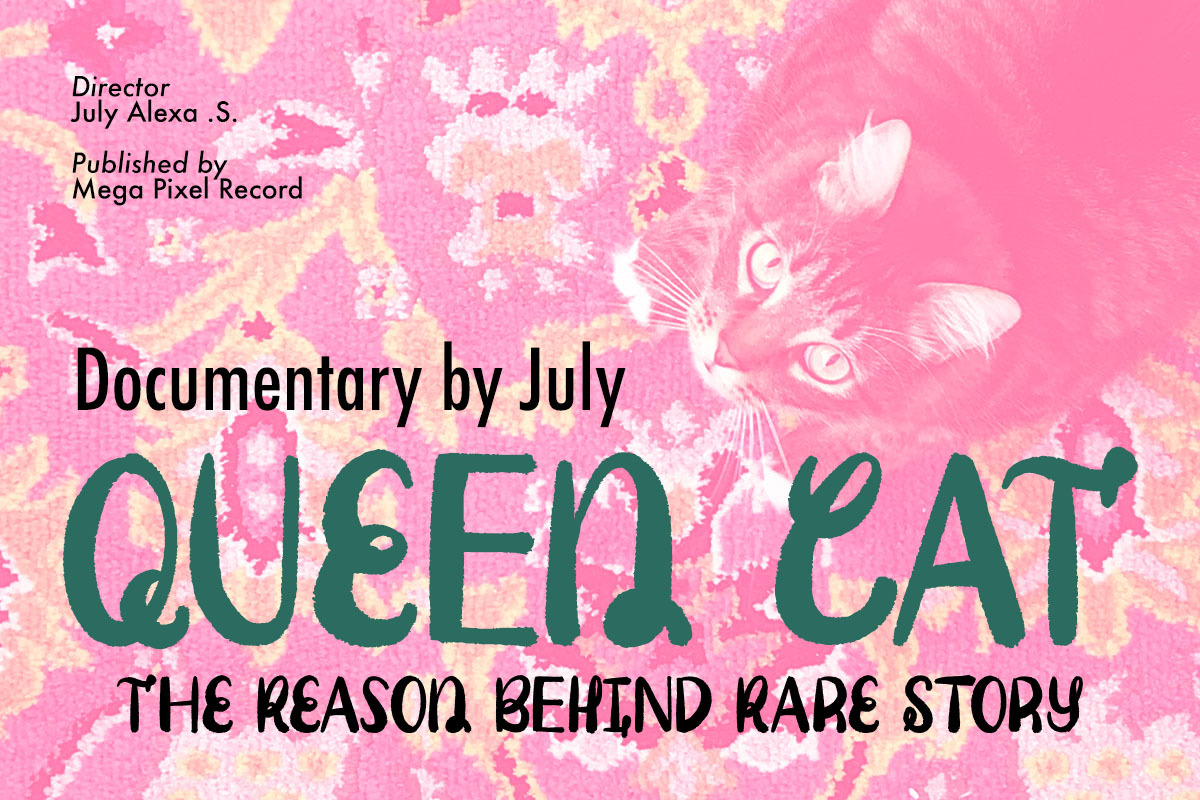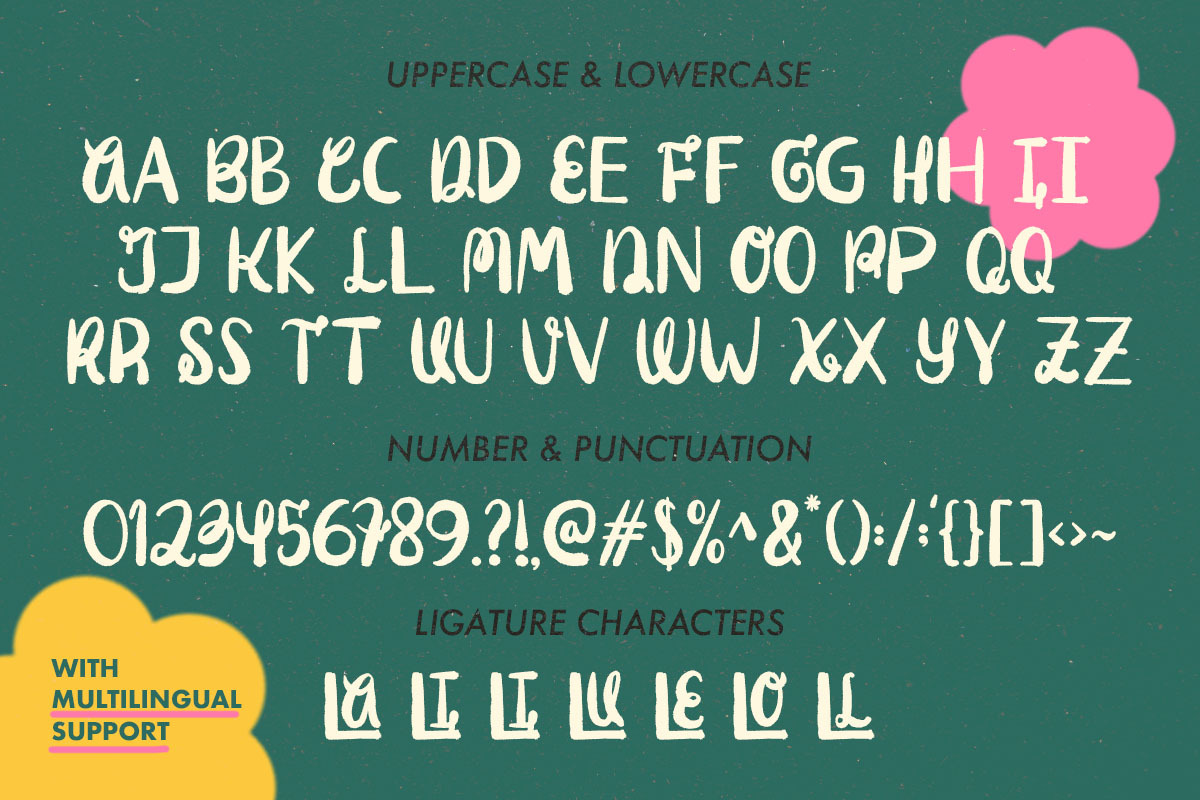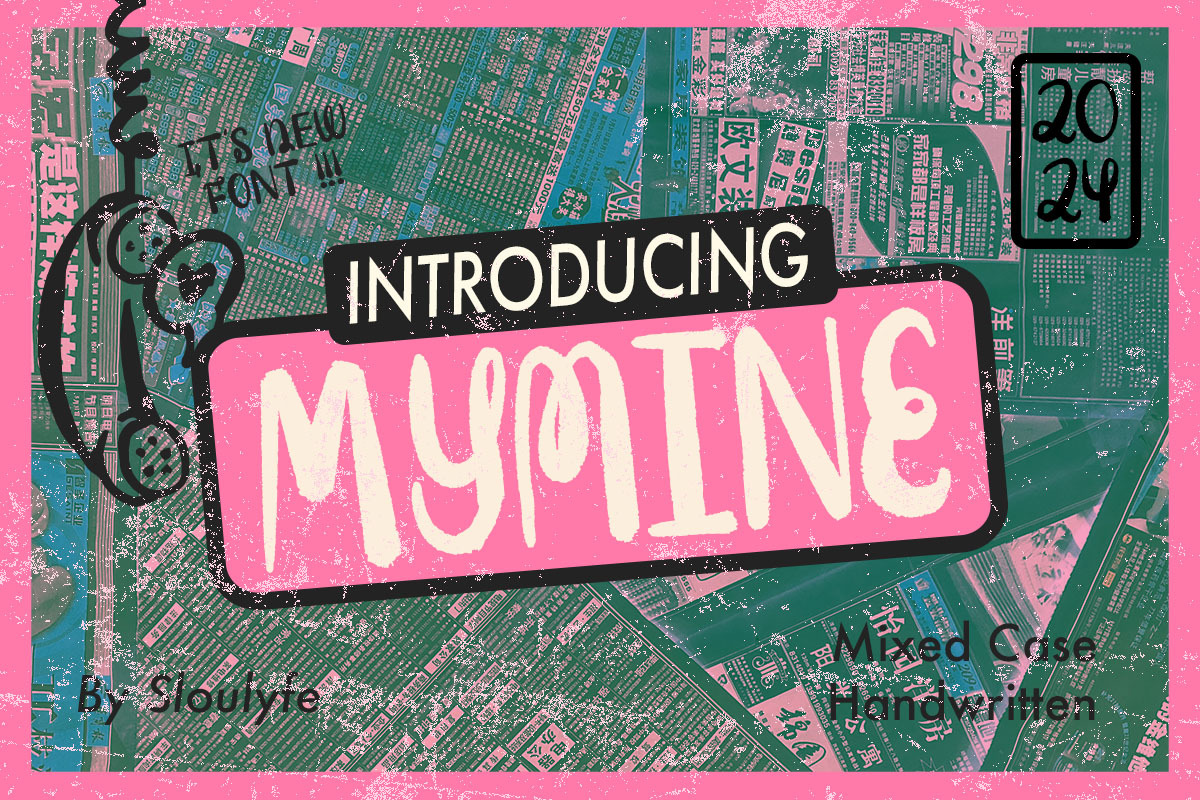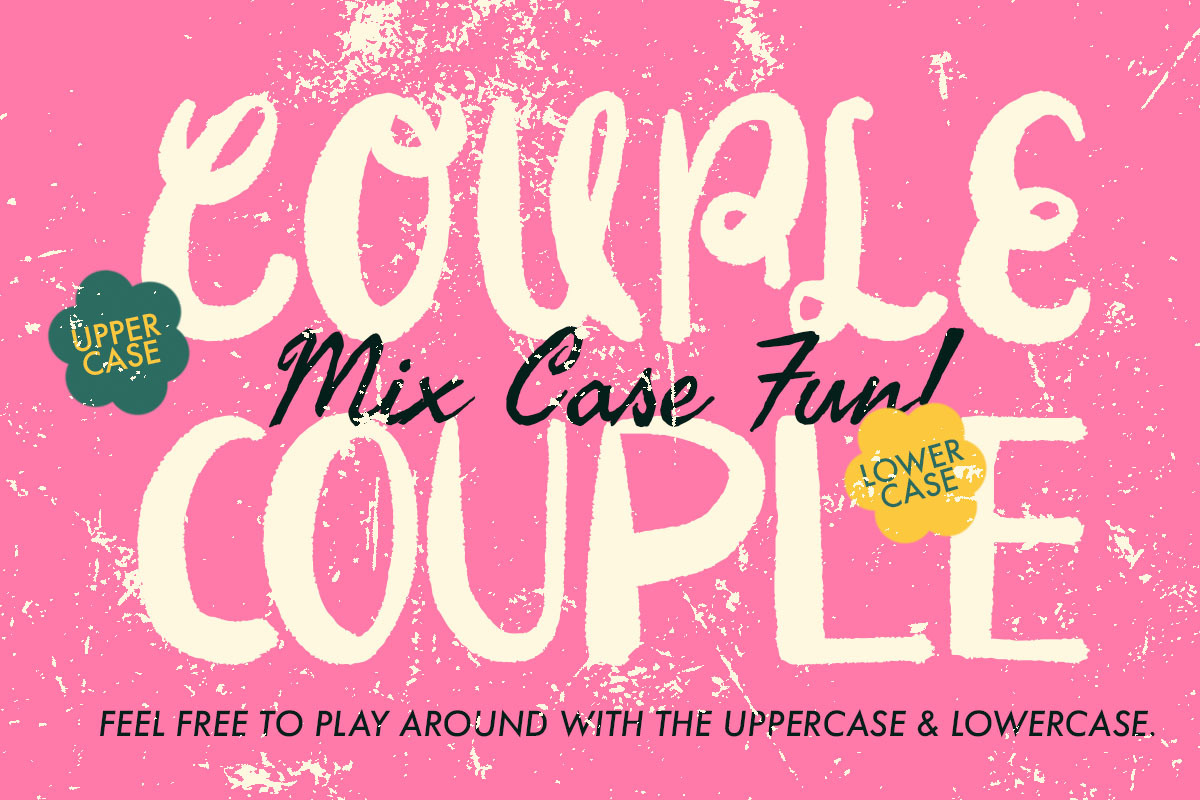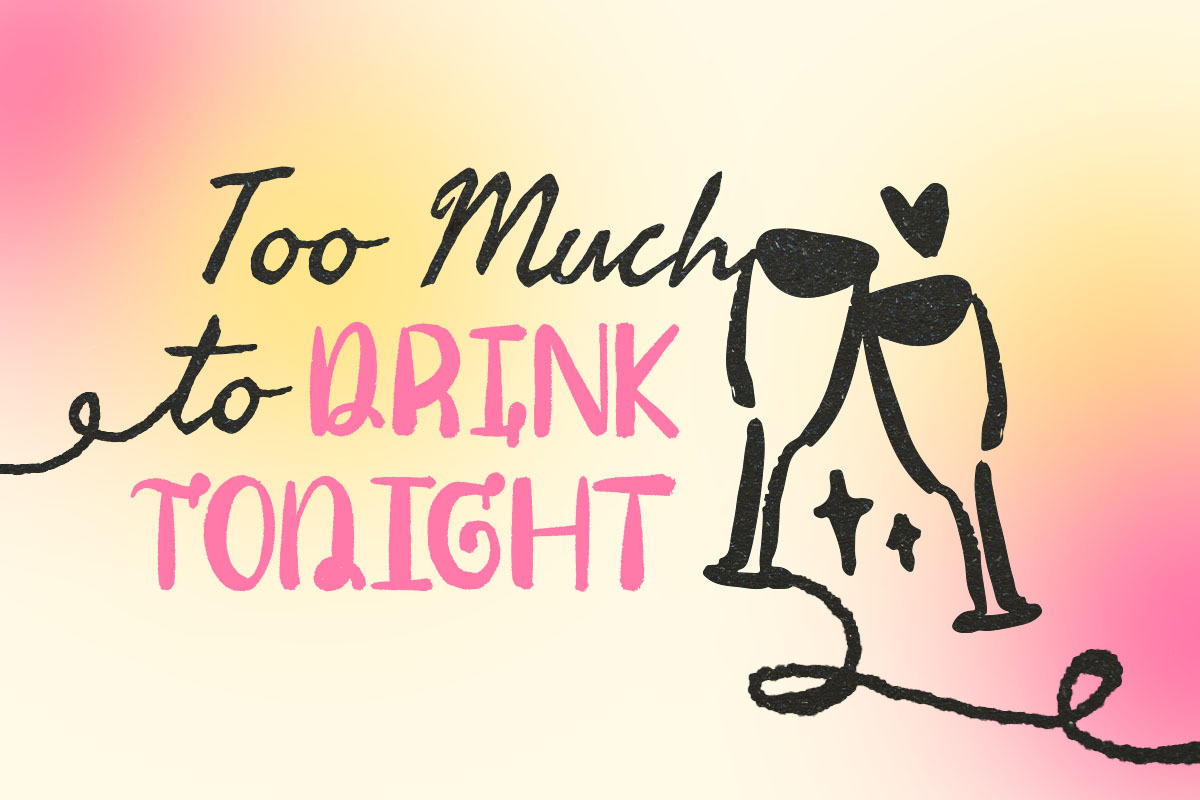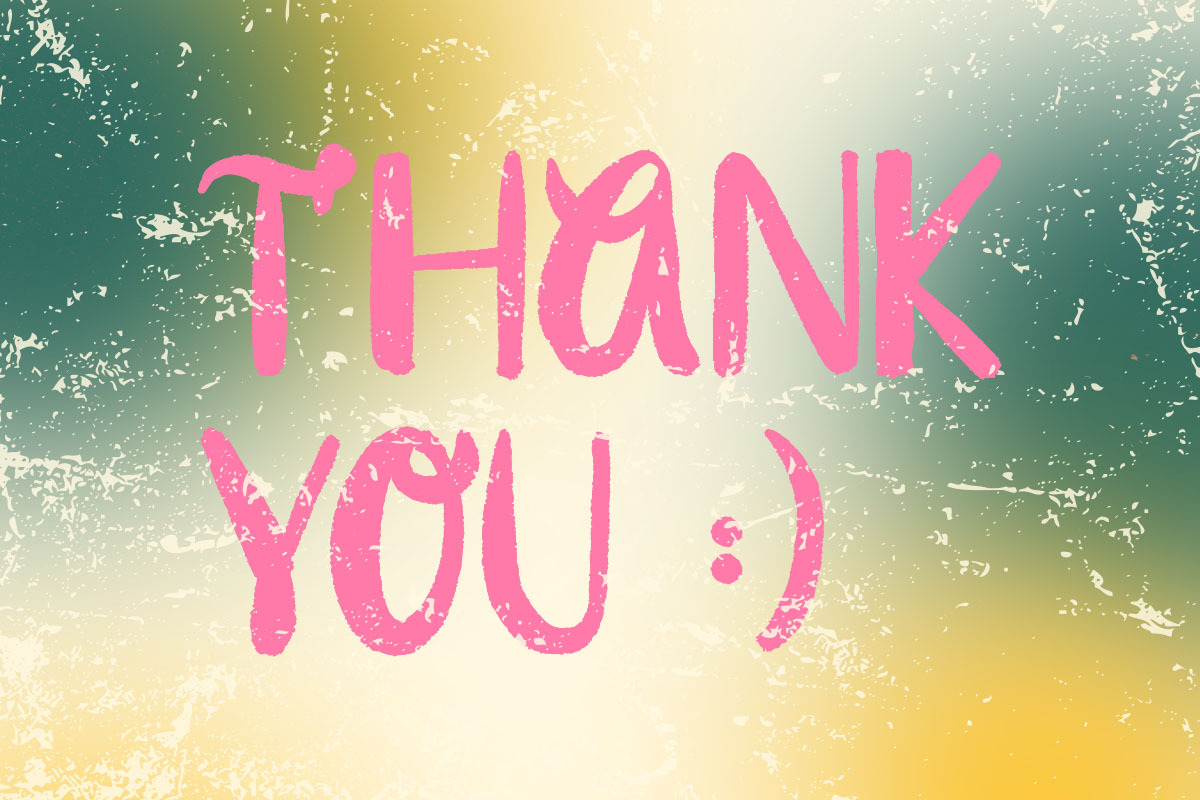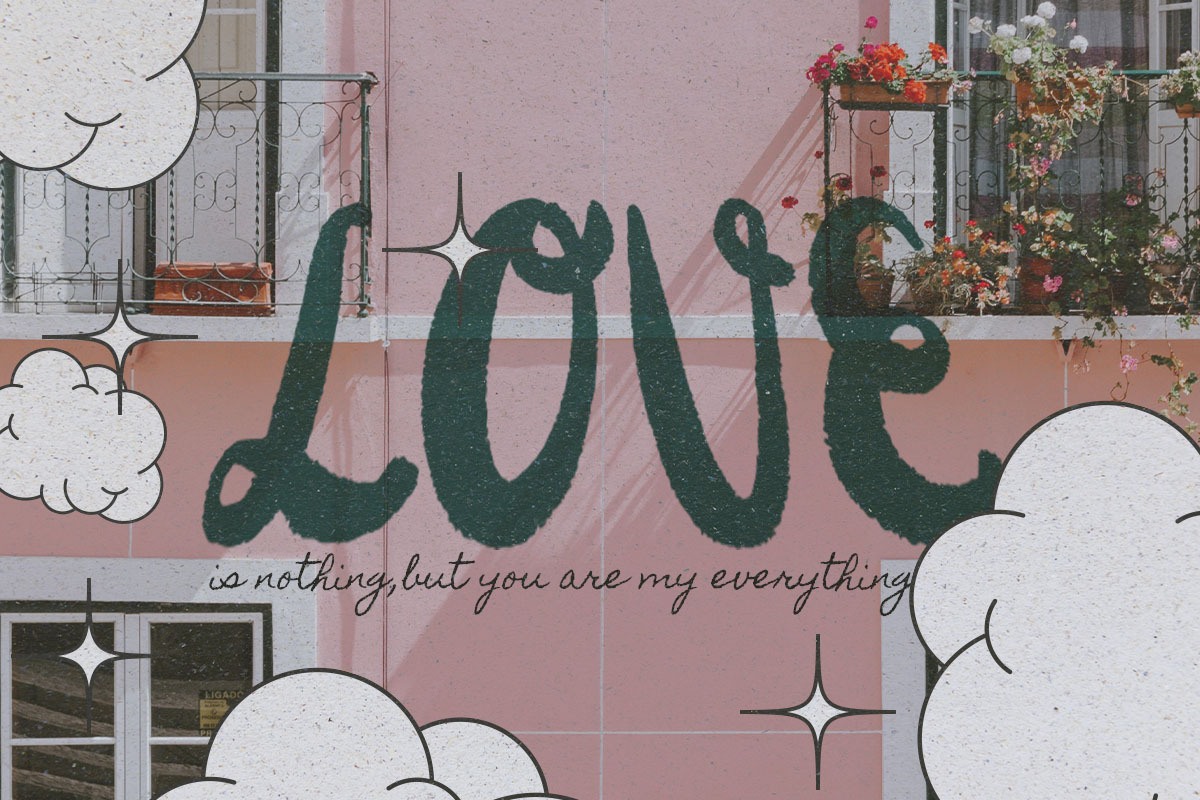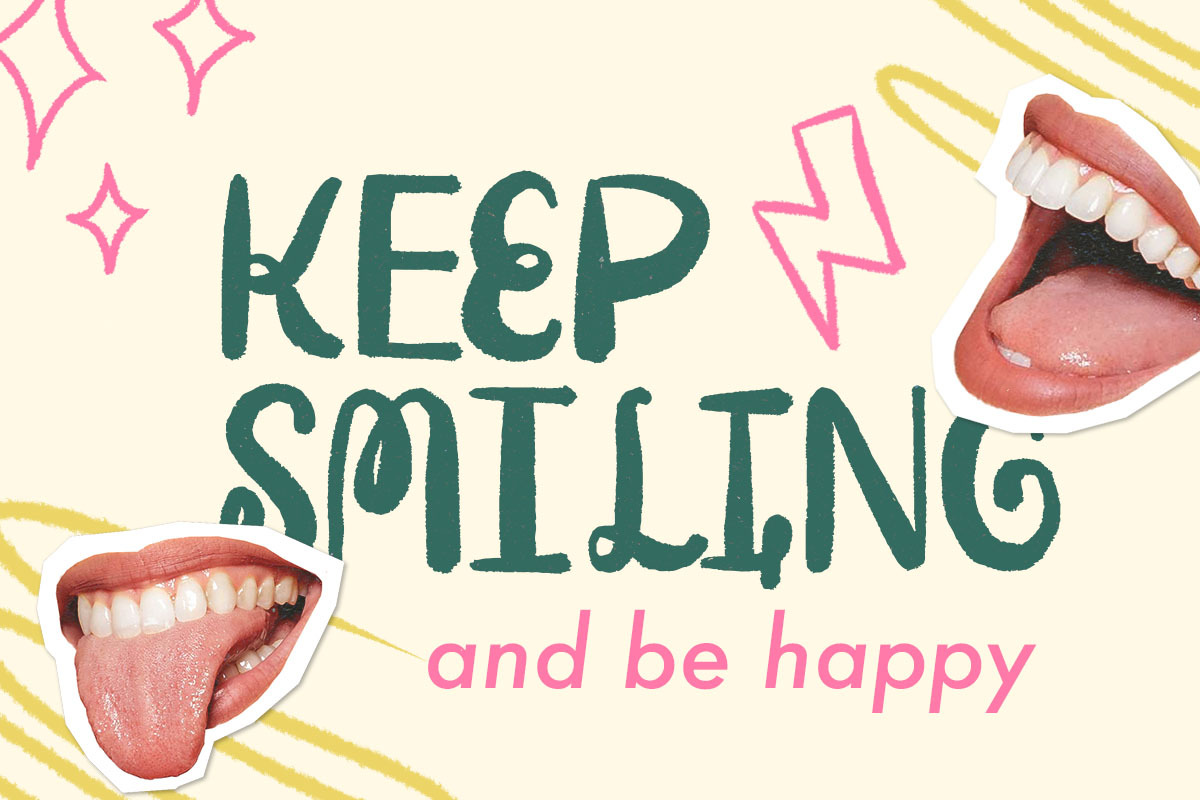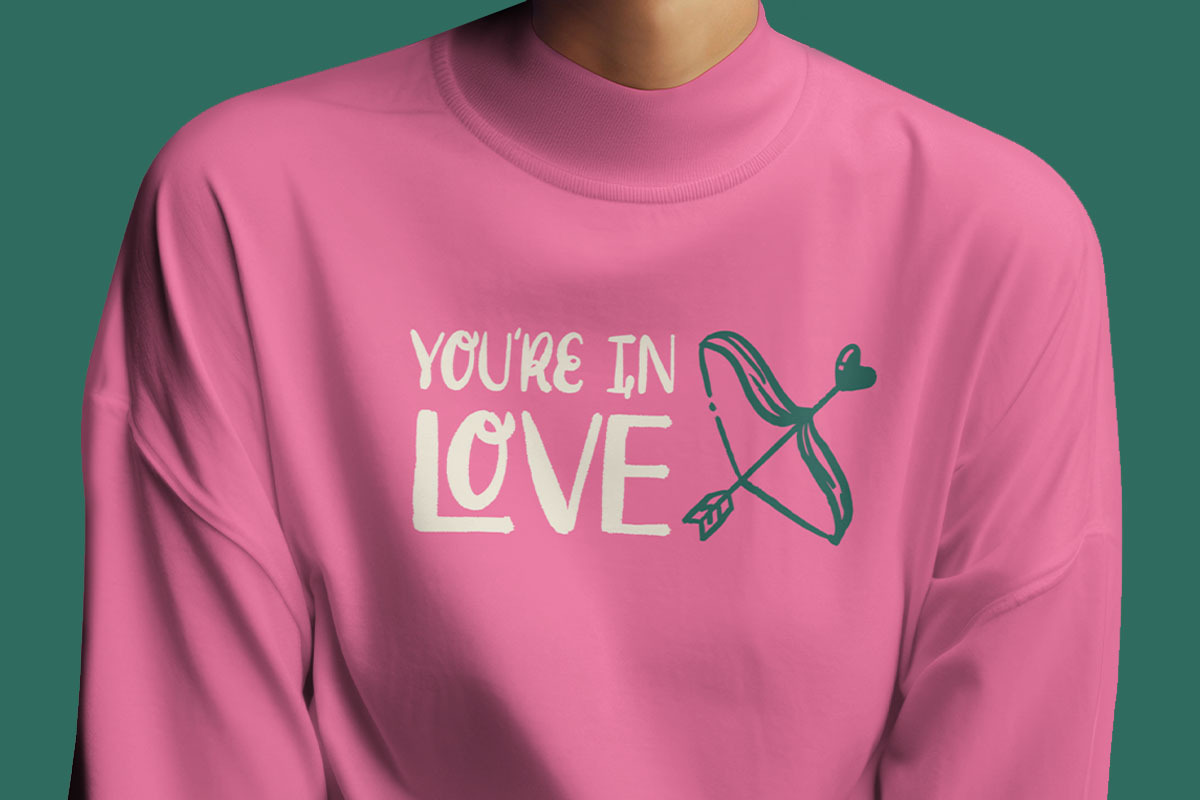
Mymine - Mixed Case Handwritten Font
Nostalgic for 2000s texting? Mixing uppercase and lowercase was the cool thing to do. Wasn't it fun?
Introducing Mymine, the embodiment of that vibe. Organic handwritten display fonts that give you the freedom to play without restrictions. Express yourself without the worry of appearing tacky—still catchy!
- Number & Punctuation
- Ligature Option